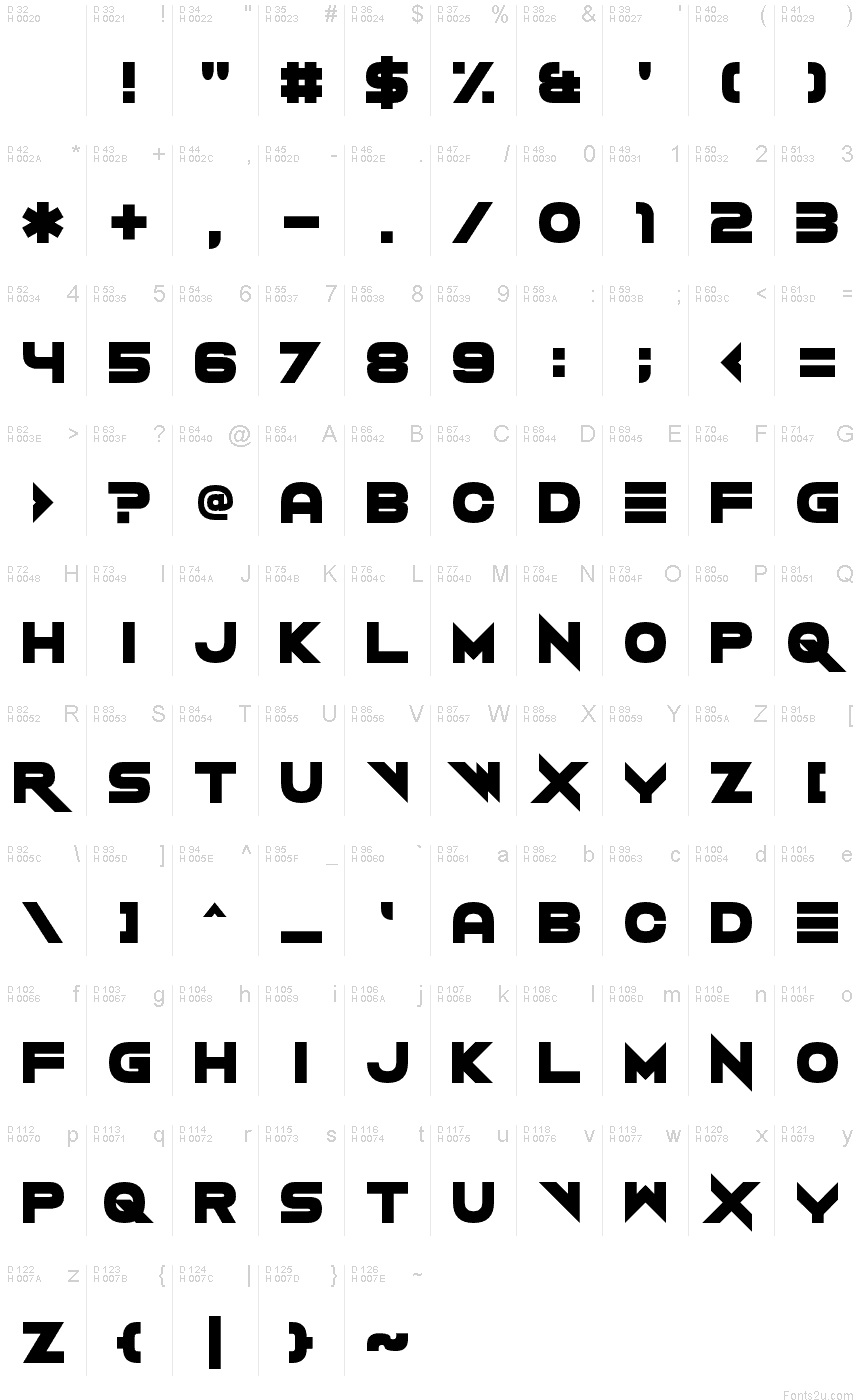
Vermin Vibes 2 Black
Vermin Vibes 2 Black by NAL Games is a free futuristic display font with broad geometric capitals and an emphatically low-slung profile. Rounded bowls meet sharp diagonal cuts, creating a sleek mechanical silhouette that feels custom-drawn rather than conventionally typeset.
Its machine-age styling connects esports branding with electronic music posters, and its extreme width also suits fashion packaging and club merchandise. In those settings, the letters can become a logo or badge, with the angular joins supplying the graphic hook.